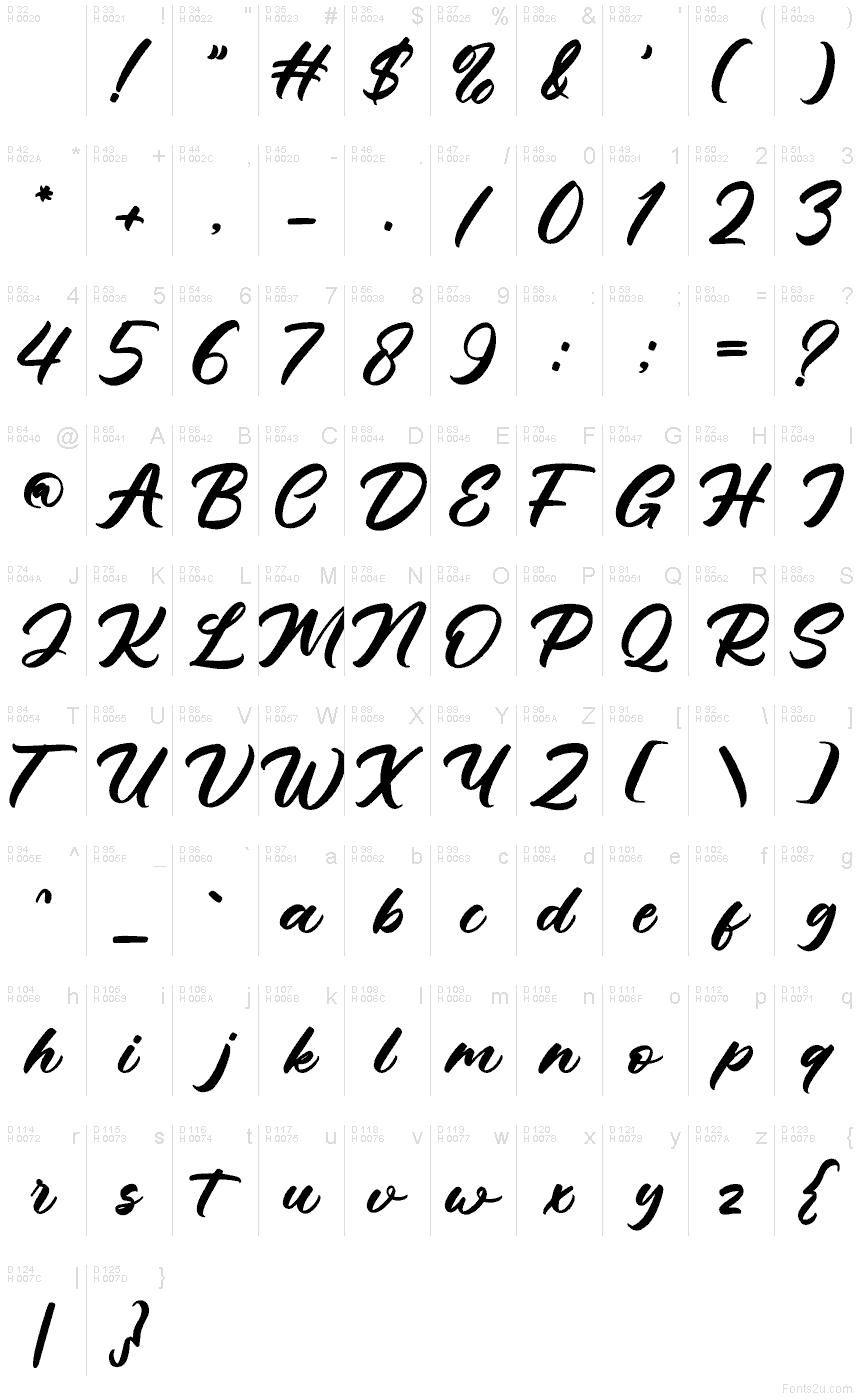
Morning Waves
Morning Waves font by Rahagita Studio is a free calligraphy font that captures the elegance of flowing handwriting. This expressive typeface combines casual elegance with the refined touches of signature script, crafting patterns inspired by gentle water trails or untamed hair strands. Soft, natural lines and strokes make visuals feel calm and transformational with this design.
Go for invitations, formal greeting cards, or postcards. Use it for brand logos, personal signatures on websites or emails, clothing designs, magazine layouts & headers; embellish tattoos using Morning Waves as an all-caps effect combined together in harmony between upper/lower cases when letters are overlapping each other.